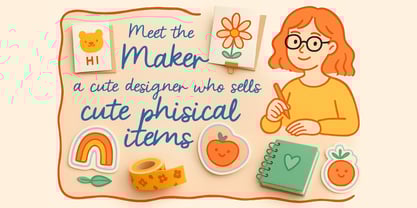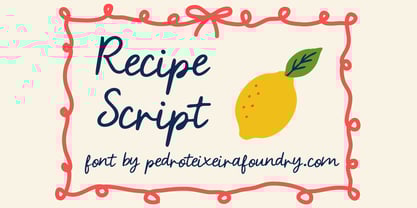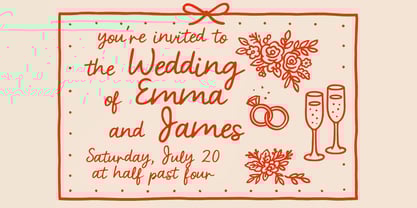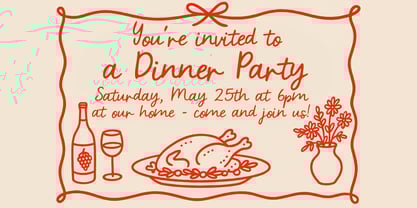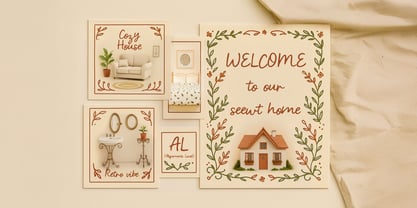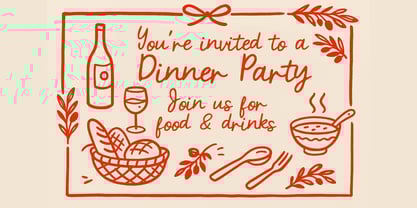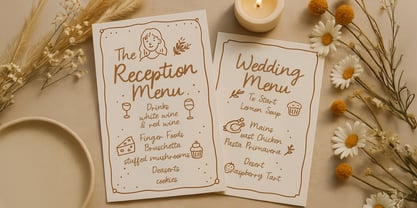
Recipe Script
by Pedro Teixeira
The Recipe Script Font Family was designed by Pedro Teixeira and published by Pedro Teixeira. Recipe Script contains 2 styles and family package options. More about this family
Recipe Script – Handwritten Font for Menus, Invitations & Cozy Branding Recipe Script is a warm, friendly handwritten script font designed to bring charm, personality, and a homemade touch to your creative projects. Inspired by the softness of handwritten recipe cards and the joyful aesthetic of kitchen illustrations, this font blends casual elegance with playful character. Whether you're crafting a recipe book, designing wedding menus, creating dinner party invitations, or building a cozy lifestyle brand, Recipe Script adds an inviting and heartfelt look that feels personal and handcrafted. This script font is perfect for designers who want a handwriting style that is clear, legible, and full of personality. Its smooth curves and natural flow make it ideal for both digital and print designs, especially in food-related projects, home décor, packaging, small business branding, and stationery. Perfect For: Recipe books & food blogs Wedding menus, invitations & signage Dinner party invitations and event stationery Home décor prints & cozy lifestyle branding Sticker making, scrapbooking & craft designs Small business packaging and product labels Font Features: Authentic, relaxed handwritten script Smooth, organic strokes for a friendly, approachable tone Excellent readability in both large and small sizes Ideal for warm, homey, and handcrafted visual themes Works beautifully with illustrations and decorative layouts Great for logos, social media graphics, and editorial titles Recipe Script captures the feeling of warmth, creativity, and connection—making any project feel more personal and heartfelt. If you want a script font that brings charm, clarity, and a handcrafted touch, this typeface will quickly become one of your go-to favorites. Created with care by Pedro Teixeira Foundry. Learn more and explore additional typefaces at: pedroteixeirafoundry dot com